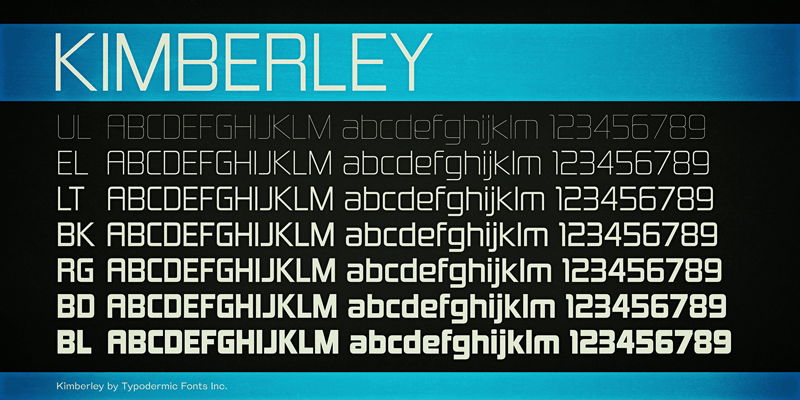
Preview and download Kimberley Font. Created by Typodermic Fonts in Basic Sans serif styles with 100% Free license.
Kimberley was inspired by several 1970s corporate/industrial logotypes. The original open 4 and knock-kneed W are available in OpenType savvy applications using the stylistic alternates feature. Don't forget to read the files inside the zip for details. This font includes a license that allows free commercial use: sometimes referred to as a desktop license. This allows you to install the font on a computer and use it to create posters, web graphics, game graphics, t-shirts, videos, signs, logos and more. Read the license agreement for details. If you'd like to embed this font in an app, ebook, on the web or anything that's not covered by the desktop license agreement, visit the link below. You'll find distributors who offer different types of licenses or you can contact me for help. http://typodermicfonts.com/kimberley/ This free font is part of a larger font family. Check out the rest of the family through the link above. |